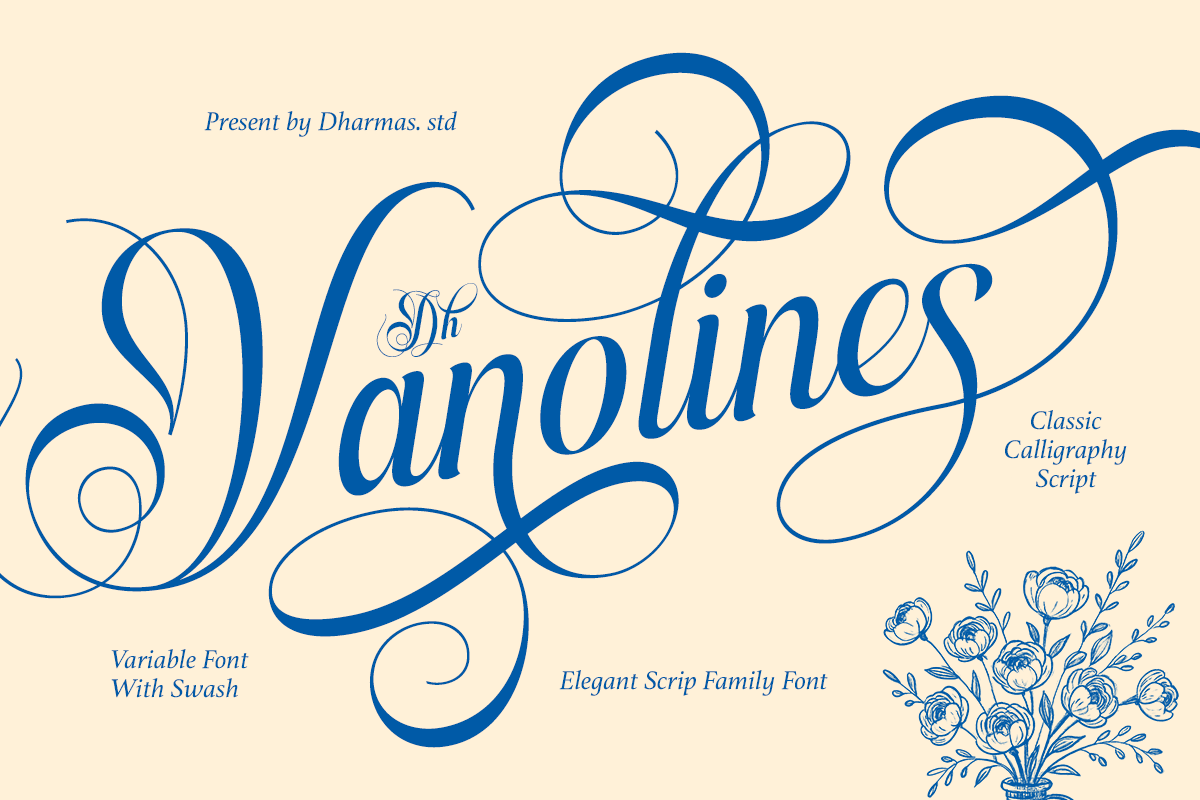
Dh Vanolines - 7 Wedding Family Font
Dh Vanolines is a calligraphy script font created for wedding stationery, luxury branding, beauty packaging, boutique businesses, event invitations, and premium product labels. Designed for logos, invitations, packaging, and editorial headlines, Dh Vanolines creates an elegant and refined visual identity. Inspired by timeless calligraphy, the overall look feels graceful, romantic, and sophisticated.
Dh Vanolines Font Features:
7 Weights: Thin, Extra Light, Light, Regular, Medium, Semi Bold, Bold
160+ Swash Alternates and Ligatures
Letters, numbers, symbols, punctuation, special alternates